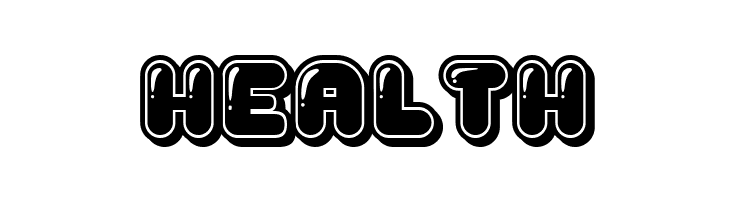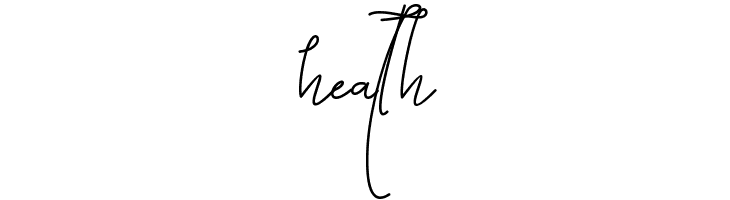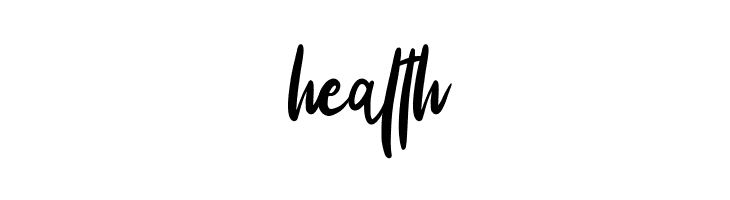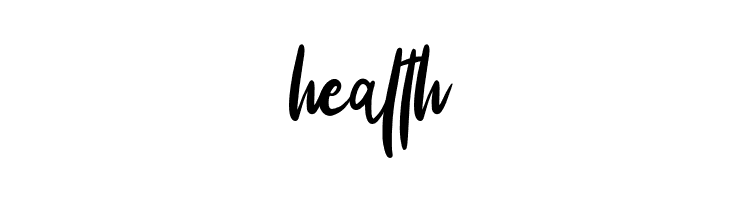
• Jellies Regular
A playful, bubble-like font with bold, rounded edges and a three-dimensional outline.
• AngellieScript
An elegant script font with flowing, cursive letters and high contrast.
• EllieScript-Regular
A casual, elegant handwritten font with fluid, connected strokes.
• Antonellie Calligraphy Demo
A flowing, calligraphic script font with elegant, connected strokes.
• EllieMagdalena
A playful, flowing script font with smooth, connected strokes.
• Ellie Magdalena
A playful and dynamic script font with fluid, connected letterforms.
• Thrainly Sellier
A delicate and elegant script font with flowing, cursive letterforms.
• aurellie aurellie
An elegant, flowing script font with smooth, cursive strokes.
• Ellies FREE
A lively and expressive handwritten font with playful, cursive strokes.
• ElliesFREE
A lively and energetic script font with bold, flowing cursive letterforms.